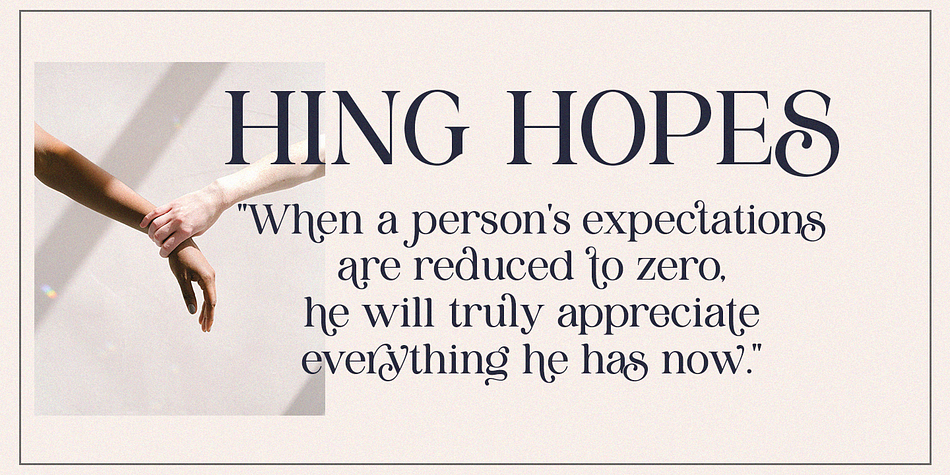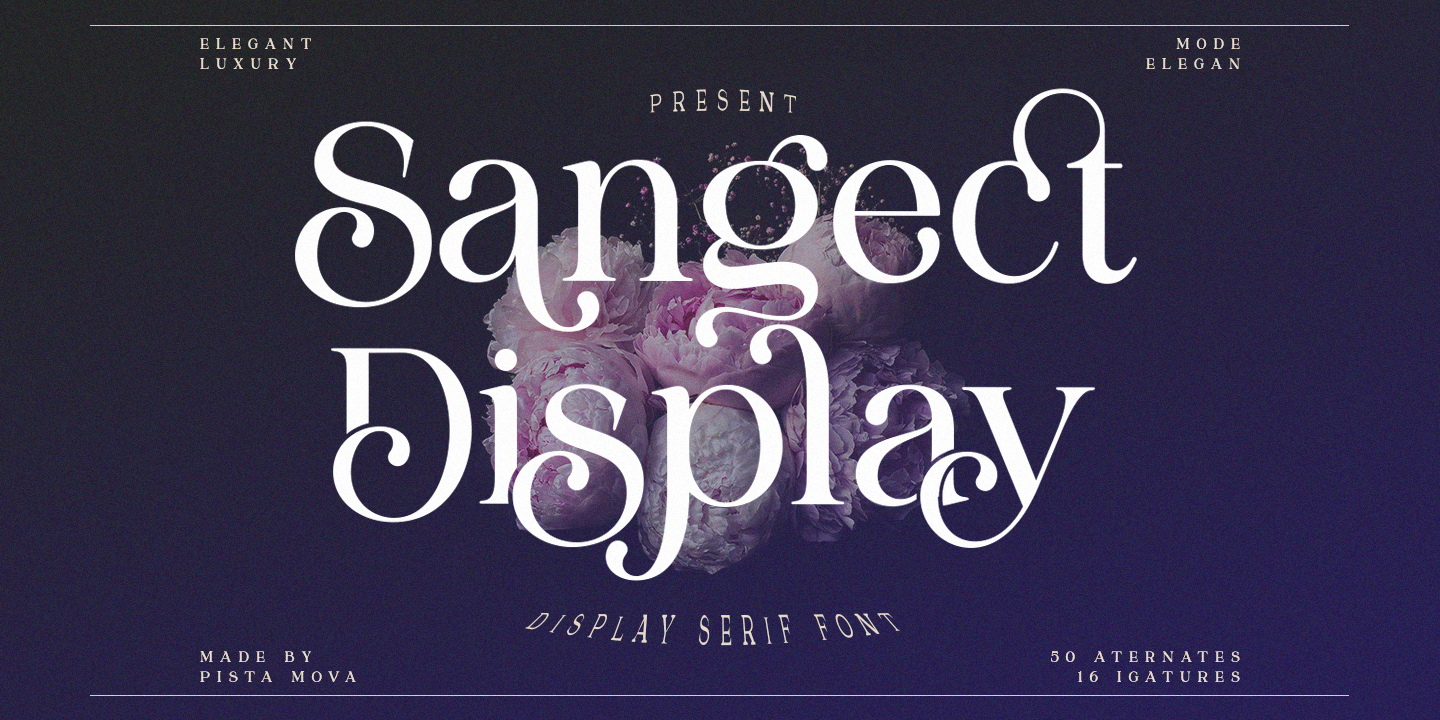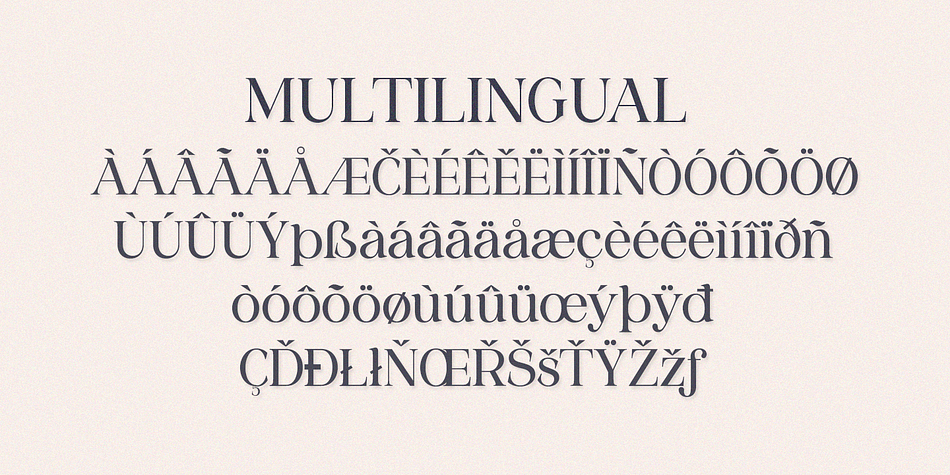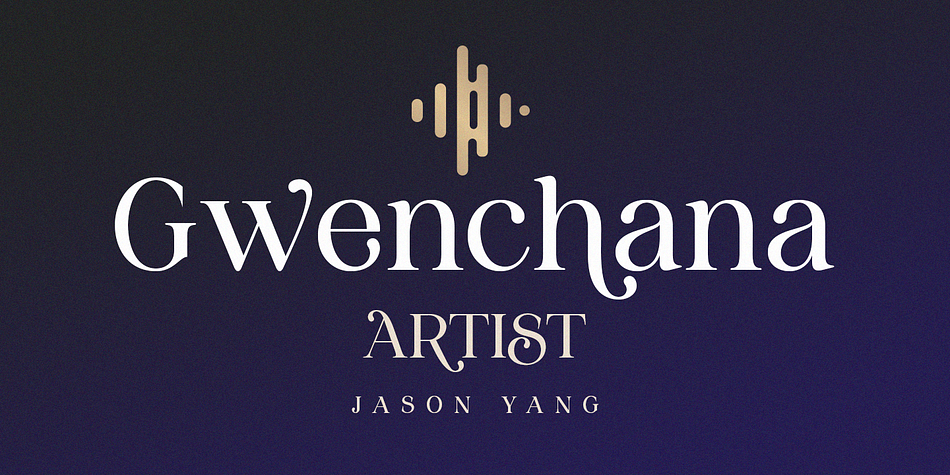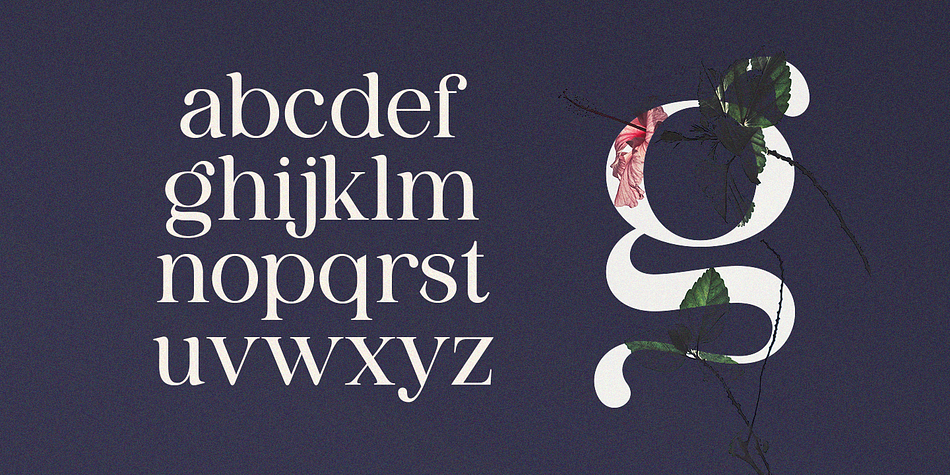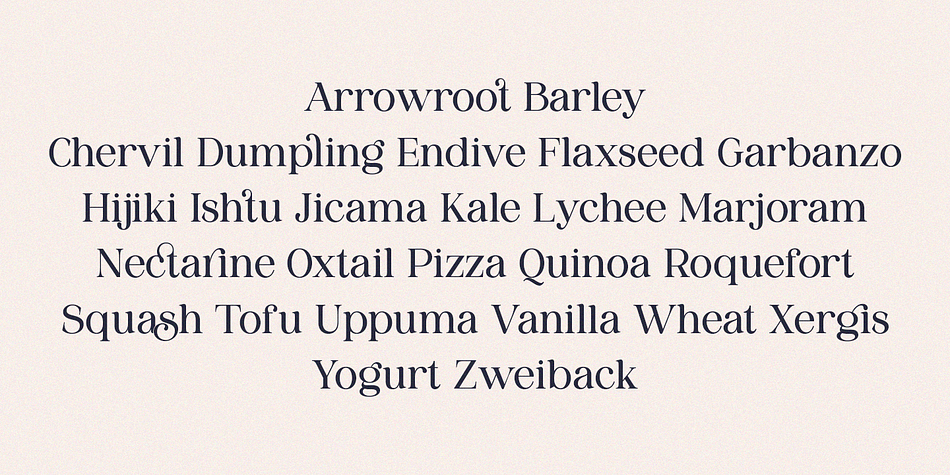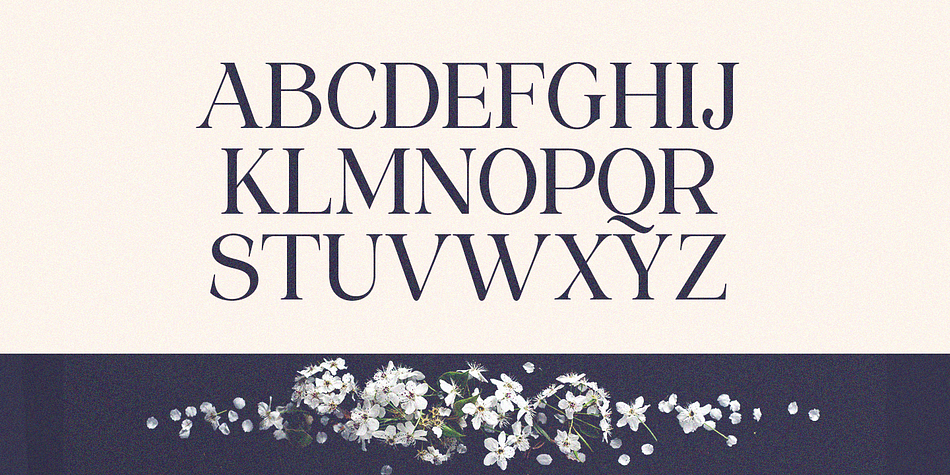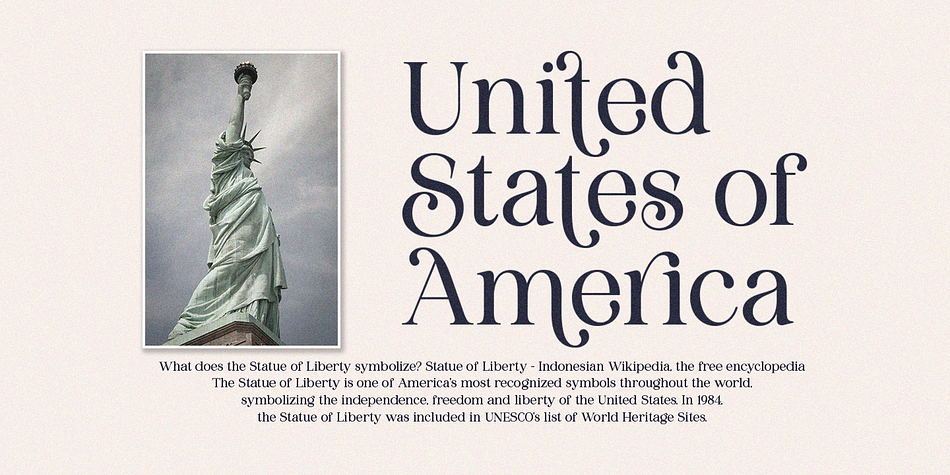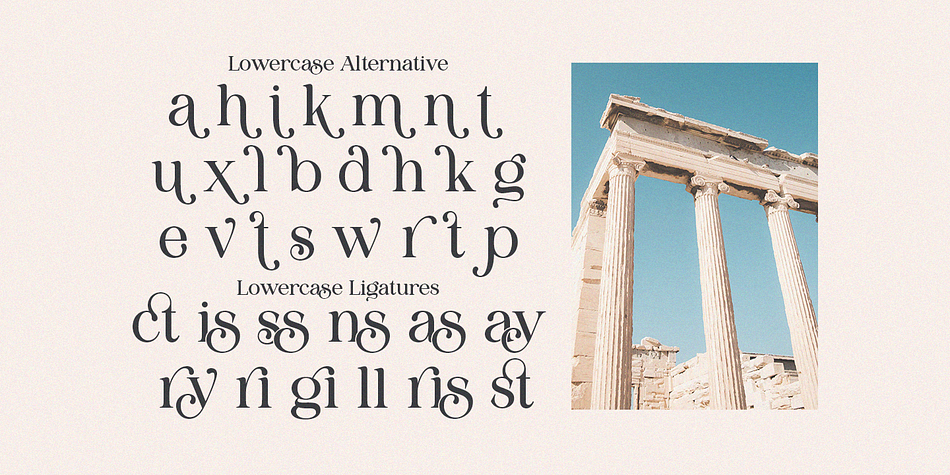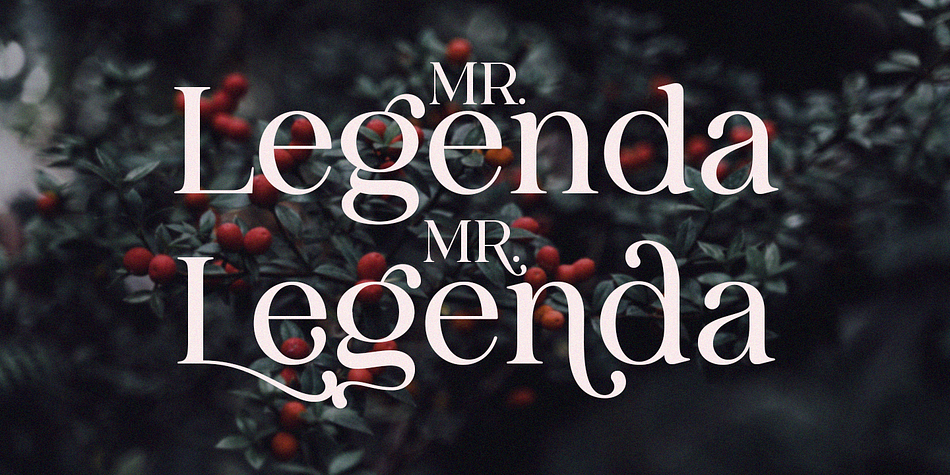
Sangect Display
Sangect Display is a display serif font family published by Pista Mova.
The display typeface is a modern take on a classic style. While paying homage to old-style type sensibilities, Sangect Display takes the characteristics of serif type and leans into drama and boldness with strong contrast in stroke width, and soft edges. Sangect Display appearance emphasizes elegance and elegance; ideal for loud and proud headlines.
Capital letters
Lowercase
Number
Ligatures
Alternative
Symbol
Multilingual